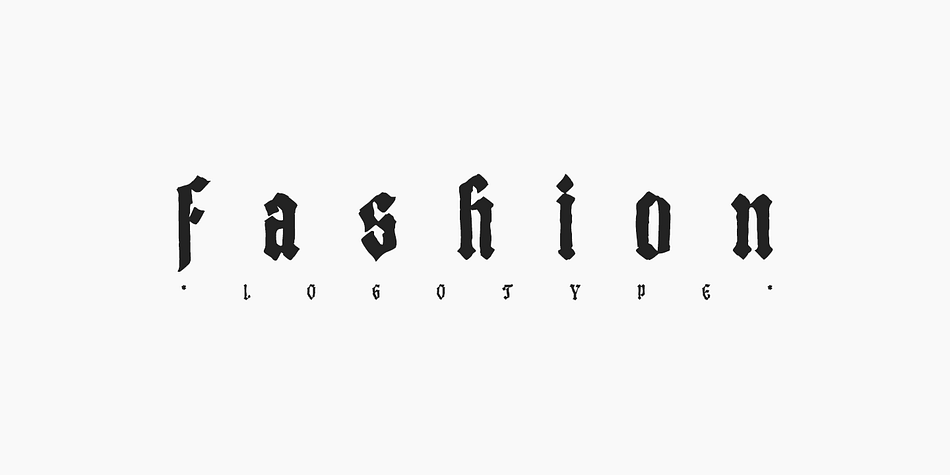
Black Madness
Designed by Mirco Zuchowski, Black Madness is a blackletter font published by Mirco Zett.
Black Madness ist a font inspired by blackletter typography, but instead of clean and accurate lines I gave it an more abstract and intuitive look.
Like most of my fonts, Black Madness is made for logos, headlines and other typography related work.
Foundry Mirco Zett
Style Blackletter
Designer Mirco Zuchowski